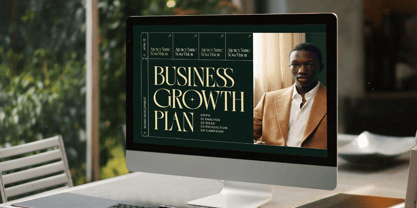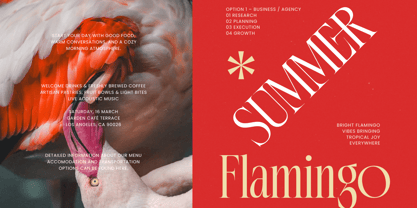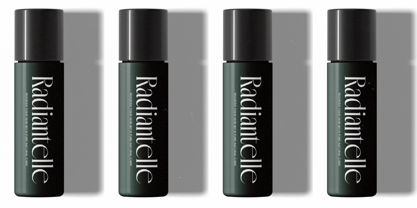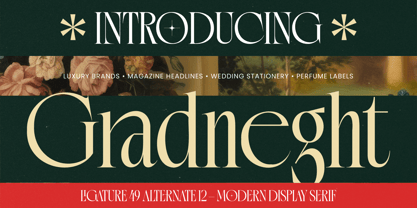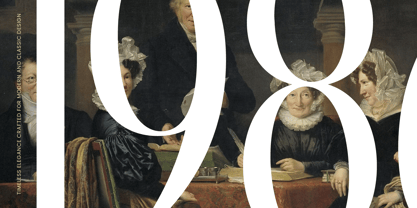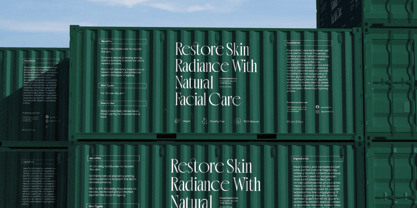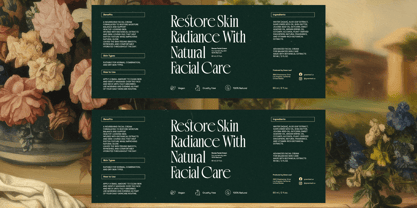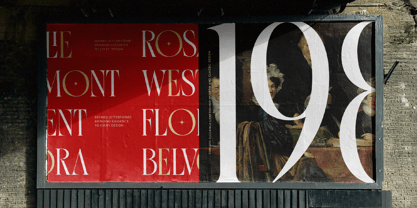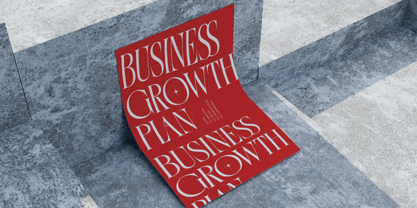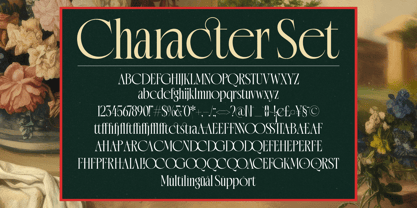
Gradneght
by Timelesstype Studio
The Gradneght Font Family was designed by Heru Utama Putra and published by Timelesstype Studio. Gradneght contains 2 styles and family package options. More about this family
Gradneght is a modern display serif font crafted to embody sophistication, contrast, and refined luxury. Designed with elegant proportions, sharp serifs, and distinctive letterforms, this typeface delivers a bold yet graceful presence ideal for high-end visual identities. Perfect for luxury brands, magazine headlines, wedding stationery, perfume labels, fashion campaigns, and premium packaging, Gradneght creates striking editorial impact with timeless appeal. Featuring 49 ligatures and 12 alternates, it offers stylistic versatility while maintaining its polished and contemporary aesthetic. Whether used for commanding headlines or upscale branding, Gradneght brings modern elegance and confident character to both print and digital design projects.